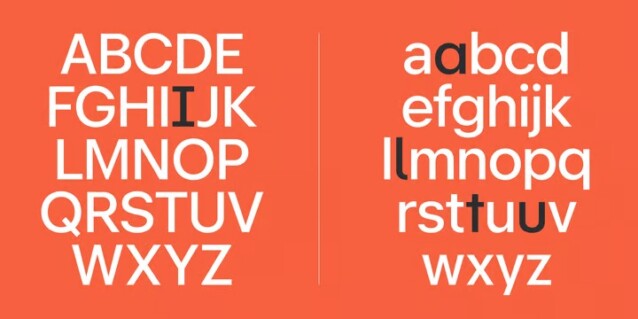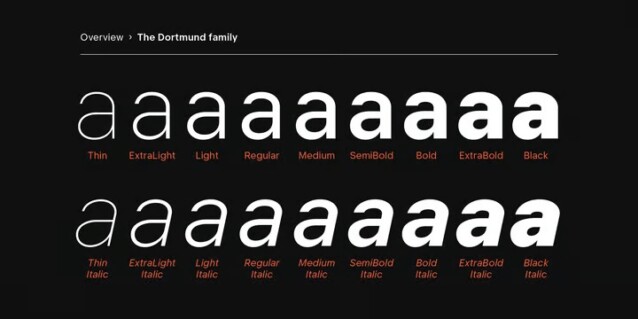
Dortmund Font
Dortmund Font is a modern sans serif typeface that can be used for both headers and body copy. This font family includes all latin characters (including accents), numbers, special characters, and punctuation. The font will work perfectly as a text typeface for smaller texts such as books, apps & websites as well as for large text such as signage, billboards and most importantly as a signage font.